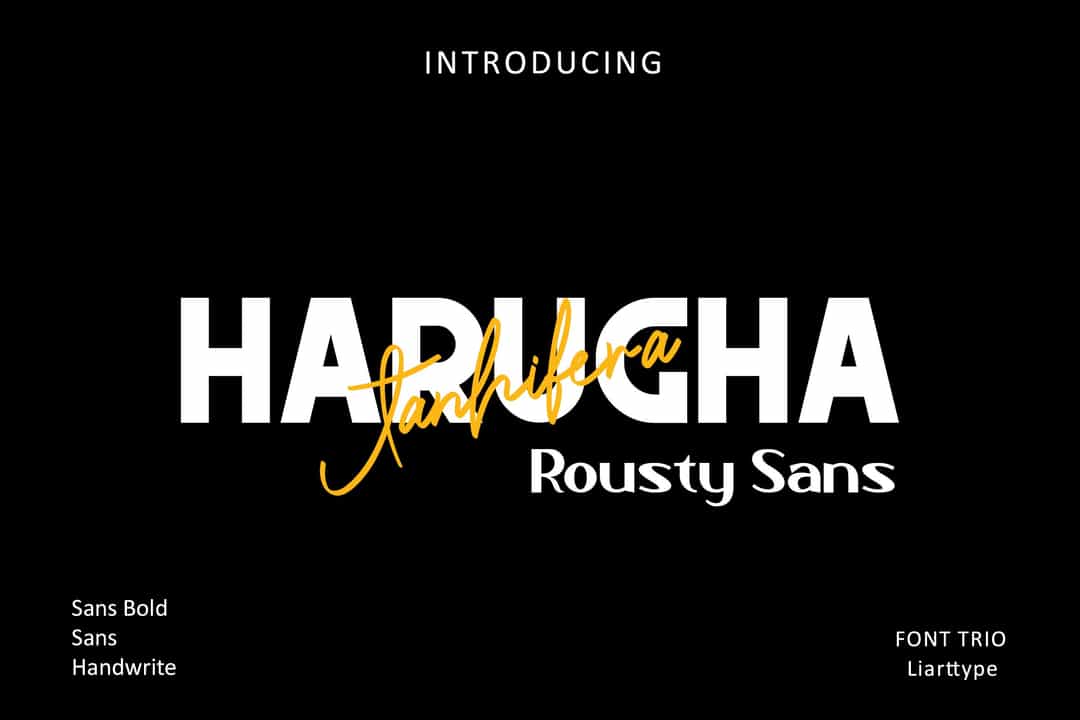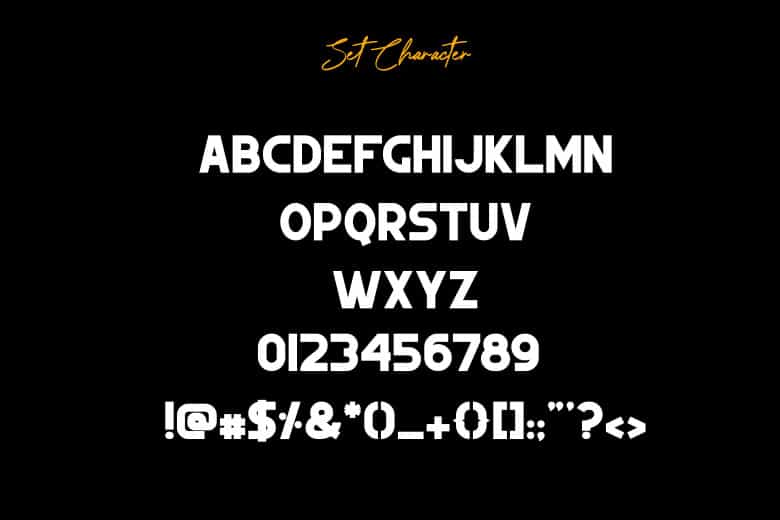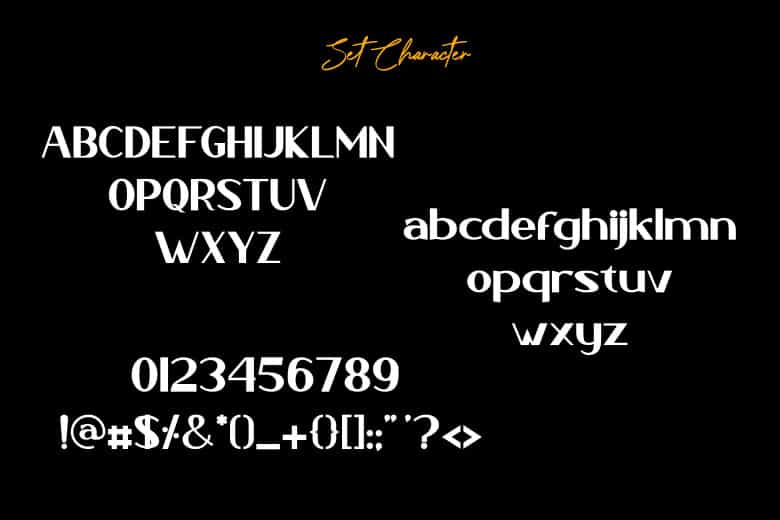
Discover Harugha Jhanifera Rousty Font, part of the Sans Serif Handwritten Display collection—a versatile and unique font perfect for adding a personal touch to your projects. Download it for free and enjoy crafting designs with style, from invitations to social media posts. This font is available exclusively for personal use, giving you the freedom to create without limits. Unlock your creativity with Harugha Jhanifera Rousty Font today!
Harugha Jhanifera Rousty is an exquisite two-font set (script and show sans) designed to add an attractive, professional appearance to your projects. These styles can be combined seamlessly or stand alone as stunning visual elements – both options look incredible when used together!